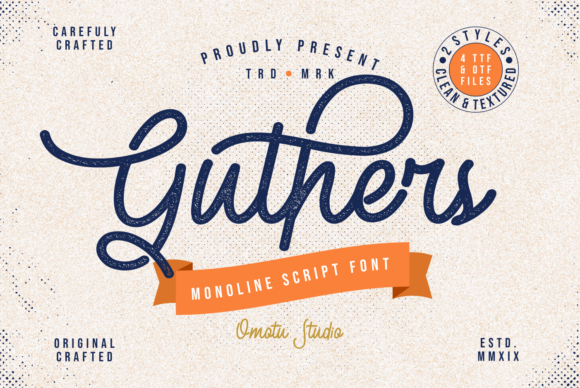
Prepare yourself to be swept away by the allure of Guthers Font, a captivating creation by the talented Omotu, designed to infuse your designs with a touch of elegance and charm. This enchanting script font, a true masterpiece of typography, invites you on a journey of creativity, promising to transform your words into works of art.
With its graceful strokes and impeccable style, Guthers Font is the perfect choice for those seeking a font that exudes both sophistication and playfulness. Its meticulously crafted characters, each a testament to Omotu's dedication to detail, dance across the page, evoking a sense of wonder and delight.
Immerse yourself in the boundless possibilities that Guthers Font presents. Let it guide your hand as you craft breathtaking logos, elevate your branding to new heights, or add a touch of whimsy to your social media presence. Whether you're a seasoned designer or just starting to explore the world of typography, Guthers Font is the perfect companion, ready to unlock your creative potential and bring your vision to life.
Guthers Font is not just a collection of letters and symbols; it's an invitation to embark on a creative adventure, to explore new horizons of expression. With its inherent versatility, it adapts seamlessly to a wide range of design projects, becoming an integral part of your creative arsenal.